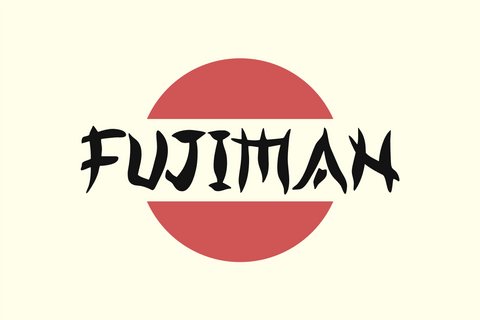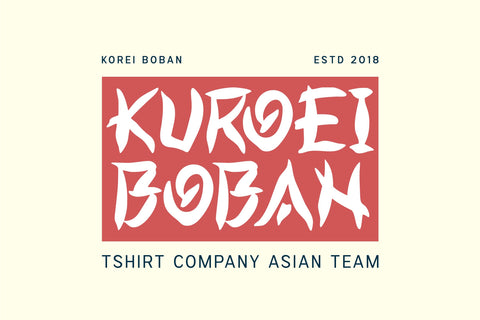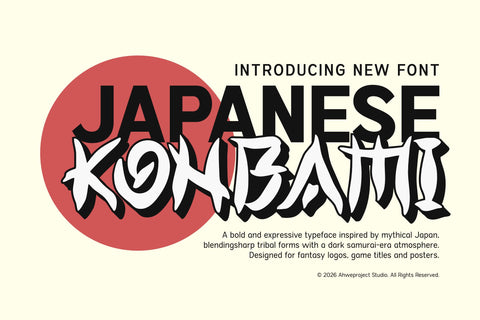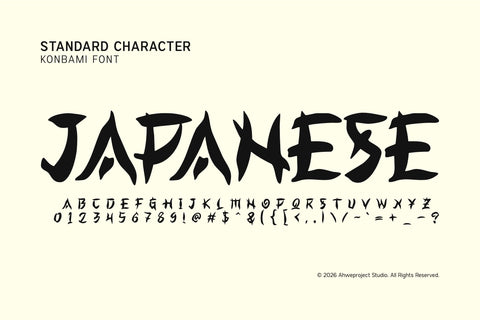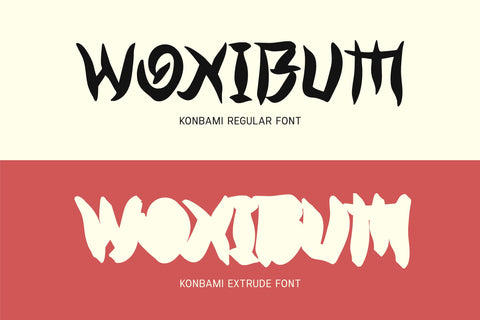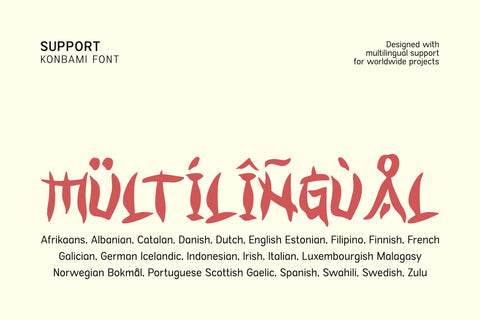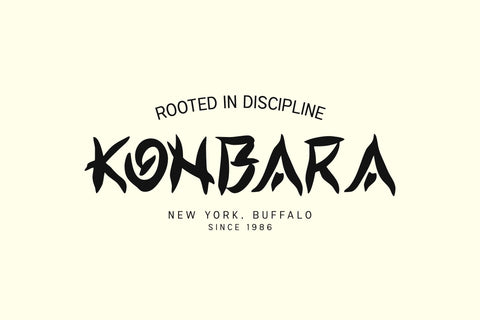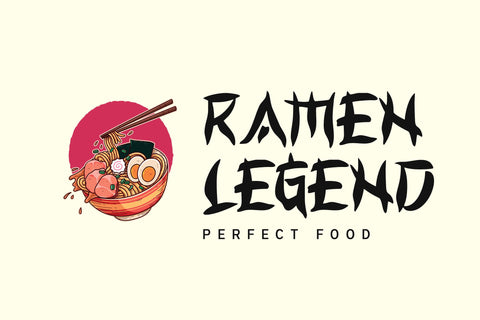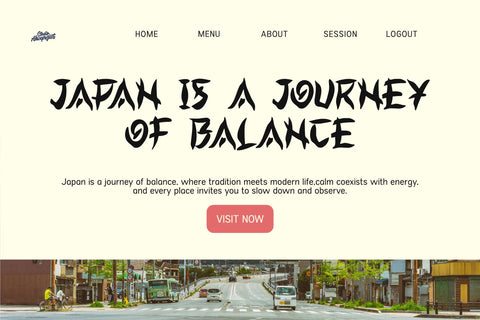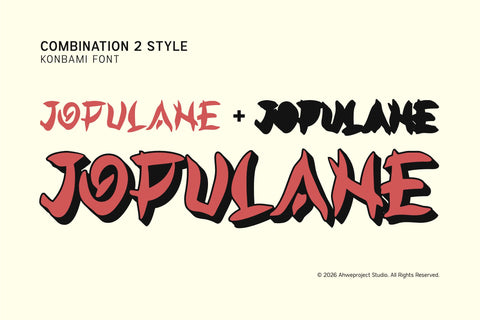
Konbami
Konbami is a bold Japanese-style display font with a strong, expressive, and powerful character. Inspired by mystical Japanese culture, the world of samurai, and modern tribal aesthetics, this typeface is designed to deliver instant visual impact.
- Uppercase & lowercase
- Numbers and punctuation
- Multilingual
- PUA encoded
Featuring sharp, aggressive, and heavy letterforms, Konbami is perfect for:
- Japanese-, samurai-, anime-, and fantasy-themed logos
- Game titles and game branding
- Posters, merchandise, and streetwear designs
- YouTube thumbnails, esports branding, and album covers
- Designs that demand a powerful, dark, and eye-catching presence
Konbami is built for headlines and main titles — not for body text. That’s its strength. It creates focus, energy, and a strong visual identity at first glance.
Why Choose Konbami?
- Bold and expressive Japanese-style typography
- Strong visual impact for logos and titles
- Ideal for fantasy, action, samurai, and game designs
- Remains readable despite its extreme style
- Makes your designs look bolder and more professional
If you’re looking for a Japanese font that’s not generic, not soft, and truly full of character, Konbami is the right visual weapon.